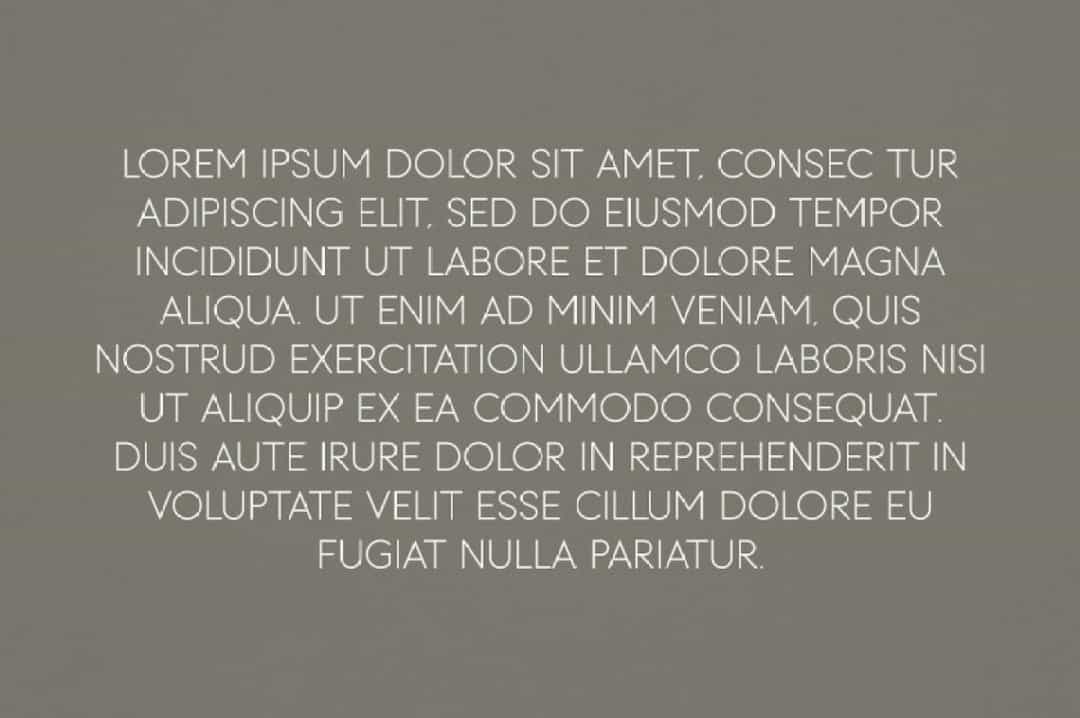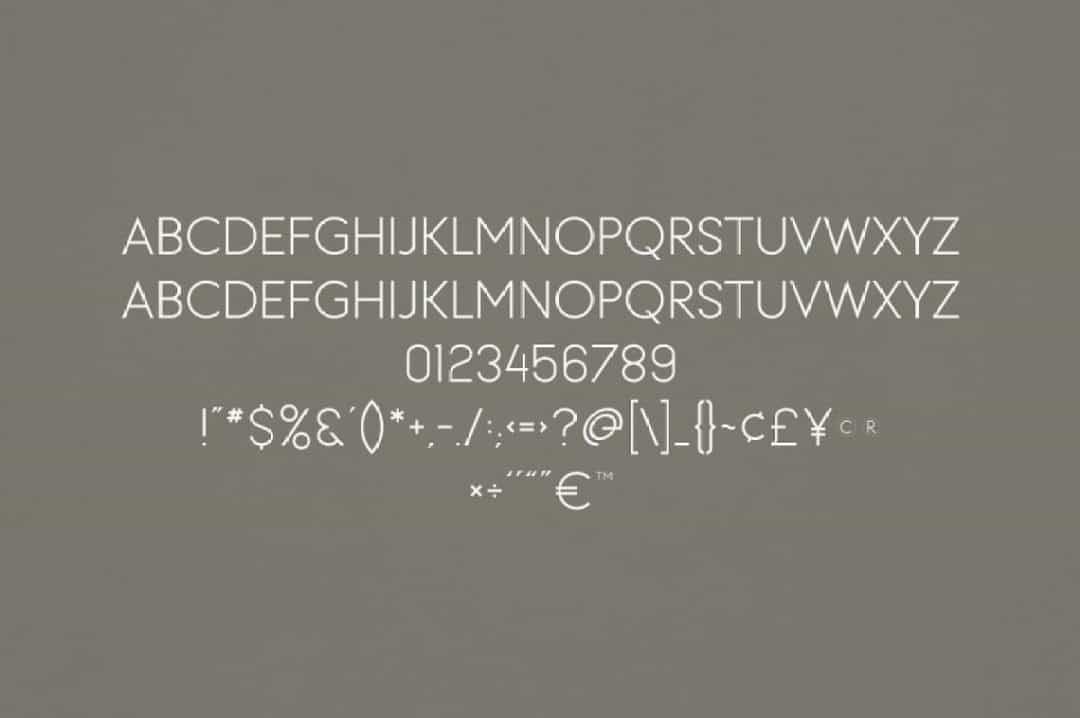
Coral is a stylish and flexible sans serif font designed to create truly outstanding typography! It will stand out in any headline, logo, branding or simple text setting and will wow audiences! Coral It can also make for stunning homeware designs, packaging for products and magazine headers while it can even simply serve as an elegant text overlay for every background image!